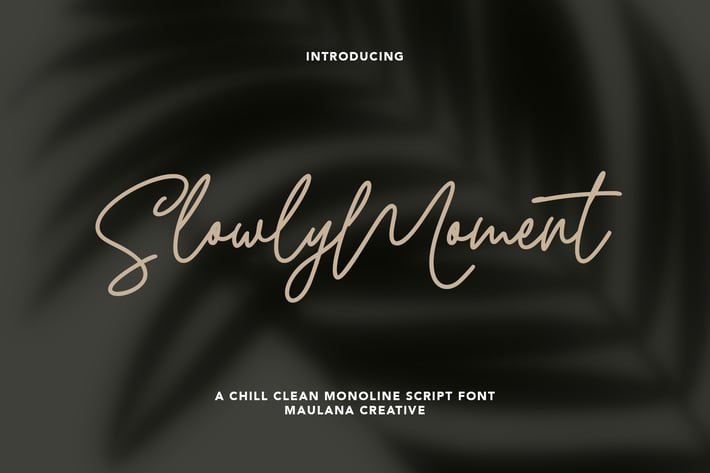
Slowly Moment Clean Monoline Script Font
Slowly Moment is a modern script font it's monoline and clean stroke with fun character. It has Opentype features Ligatures and alternate lowercase to give you an extra creative work. Slowly Moment support multilingual more than 100+ language. This font is good for logo design, Social media, Movie Titles, Books Titles, a short text even a long text letter and good for your secondary text font with sans or serif. Make a stunning work with Slowly Moment script font.